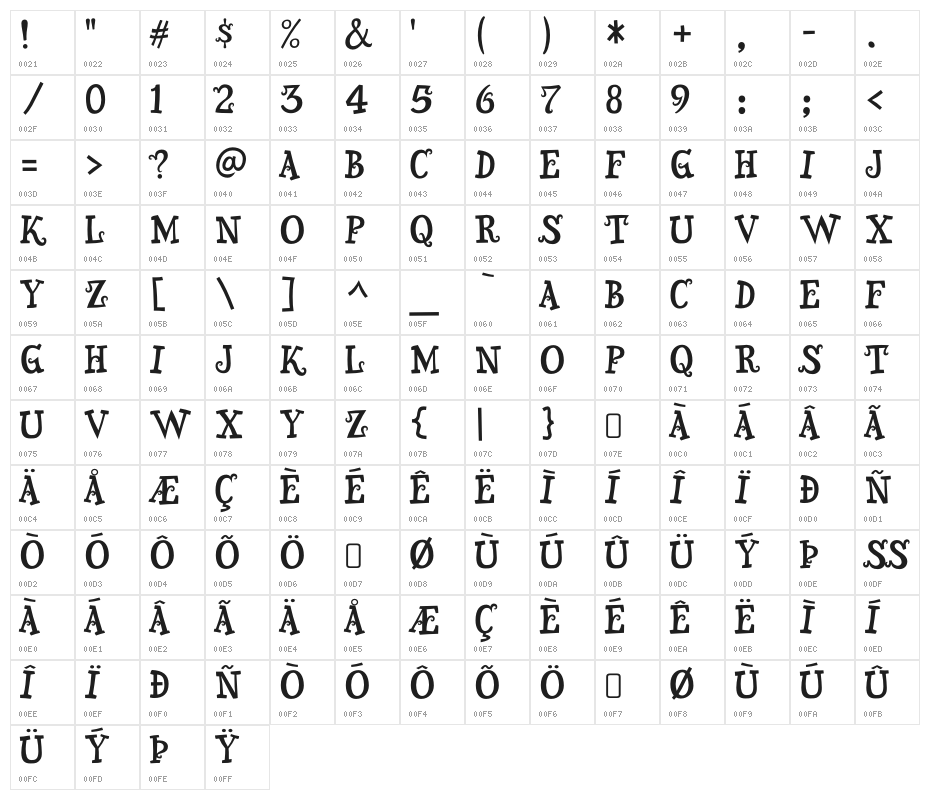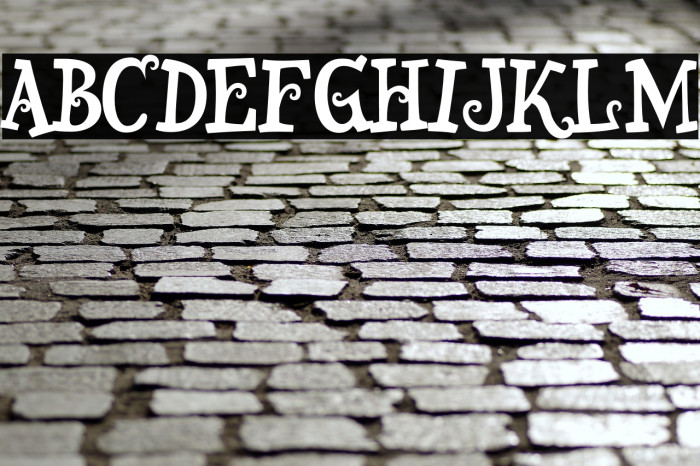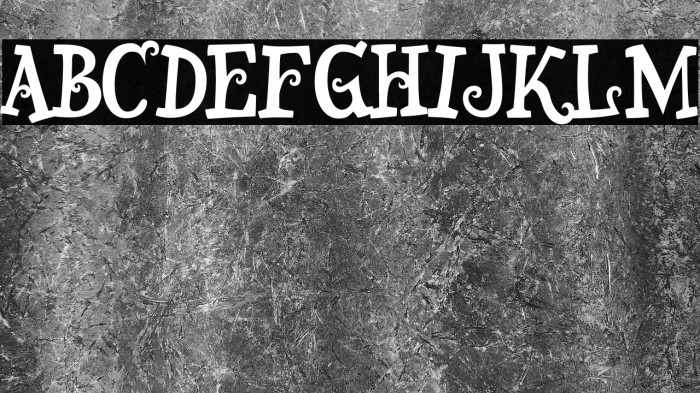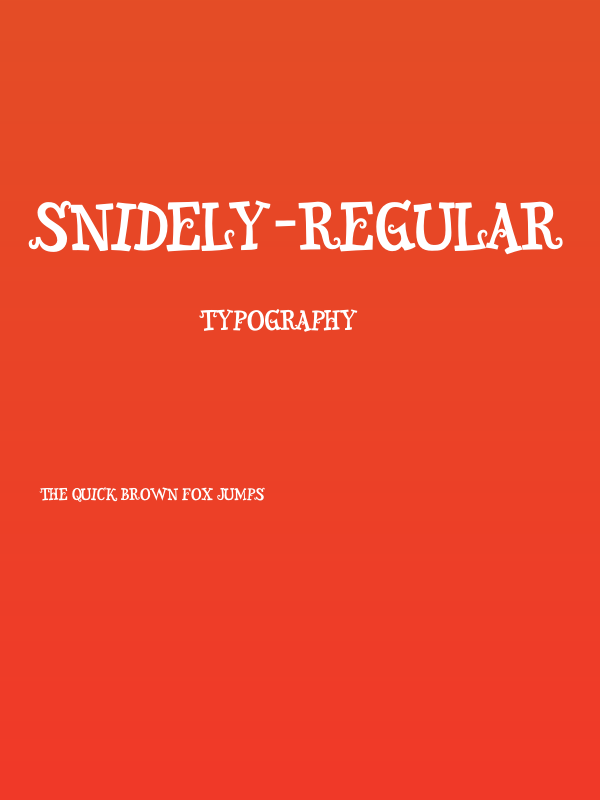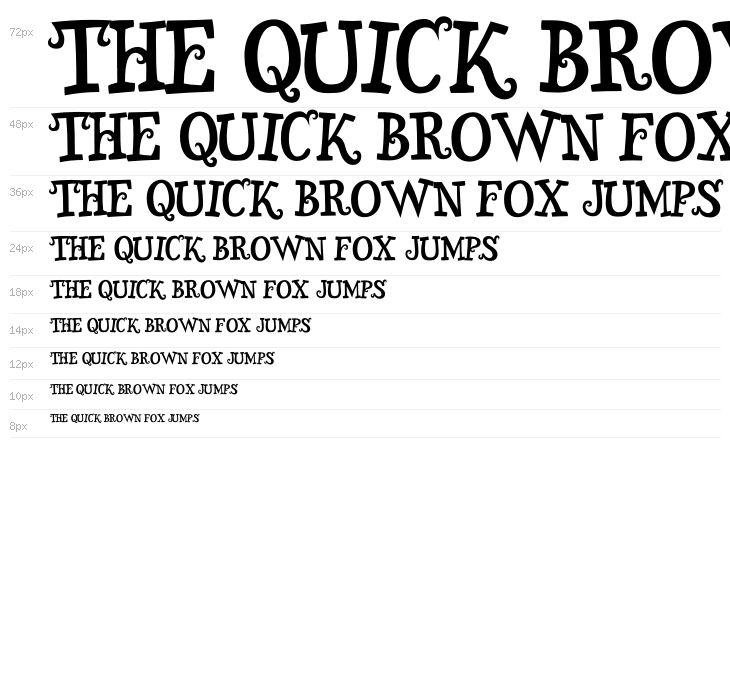
Snidely-Regular Font
Snidely-Regular Description
This font features a playful and whimsical design, characterized by its bold and curvy letterforms. Each character is adorned with unique flourishes and swirls, giving it a lively and animated appearance. The uppercase letters are particularly distinctive, with exaggerated serifs and decorative elements that add to the font's charm. The numbers and special characters maintain the same playful style, ensuring consistency throughout. This font is ideal for projects that require a fun and engaging aesthetic, making it perfect for children's books, playful branding, or creative posters.
| Overall Style | Playful, Whimsical, Decorative |
| Proposed Projects | Children's books, playful branding, creative posters, party invitations. |